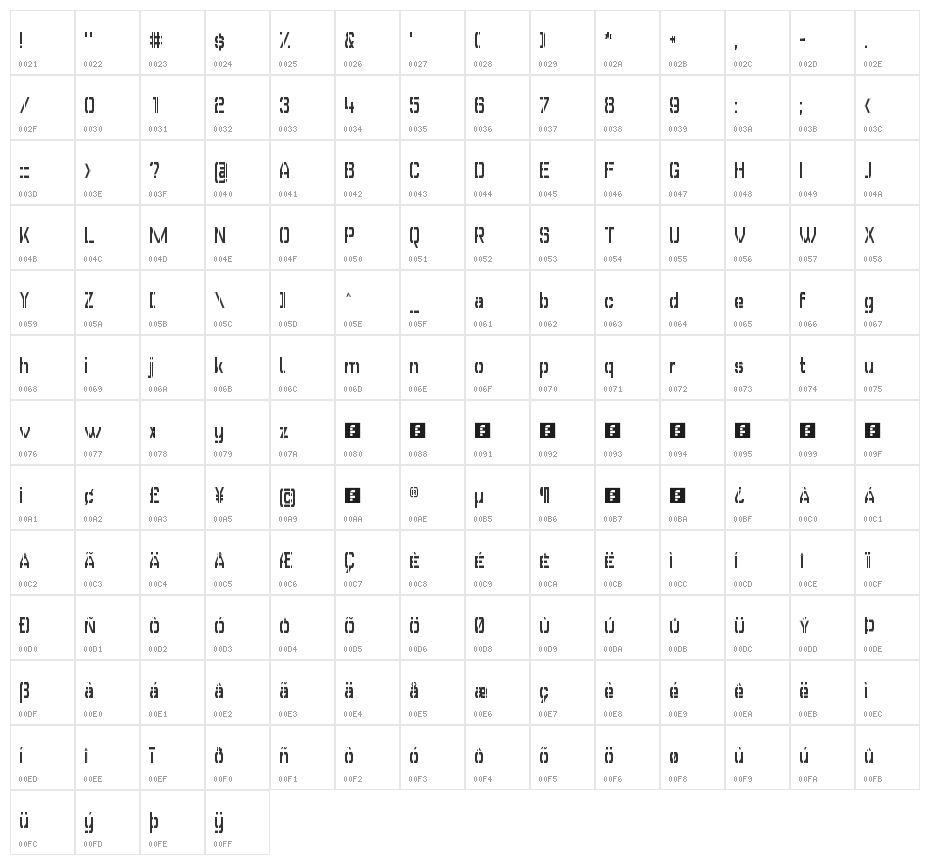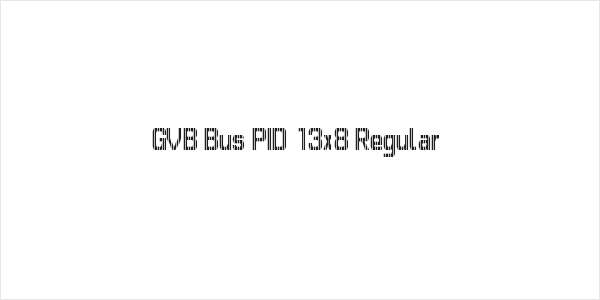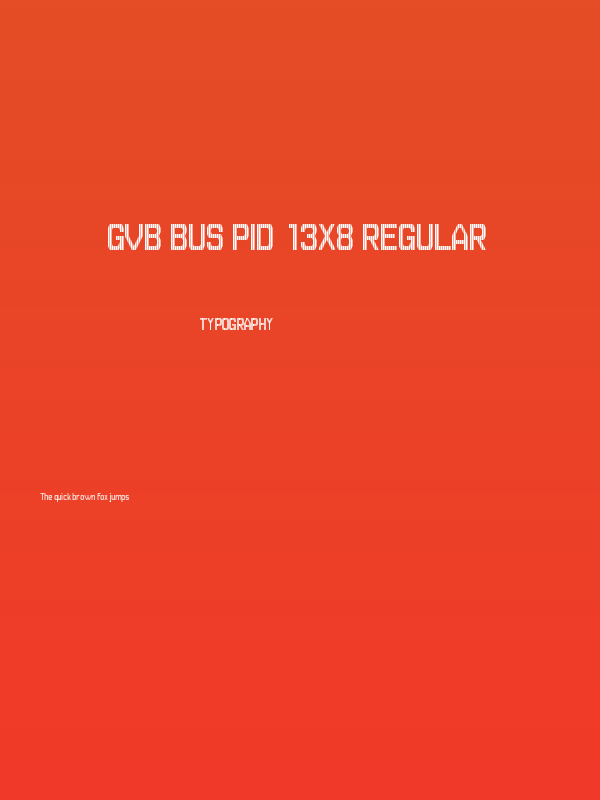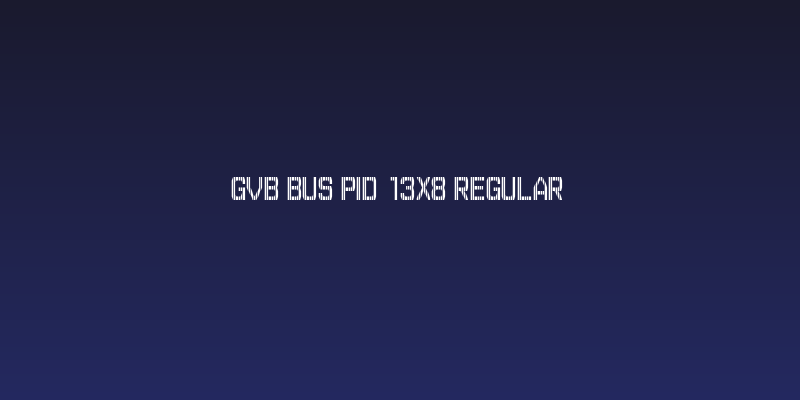
GVB Bus PID 13x8 Regular Font
GVB Bus PID 13x8 Regular Description
This font features a unique, modern design characterized by its vertical striped pattern within each character. The letters are bold and geometric, offering a futuristic and digital aesthetic. The uppercase and lowercase letters maintain a consistent style, with clean lines and sharp angles. Numbers and special characters are designed to match the overall theme, ensuring uniformity across all glyphs. The font's distinct appearance makes it suitable for eye-catching designs.
| Proposed Projects | Ideal for digital displays, tech-themed projects, branding for modern companies, and futuristic design elements. |